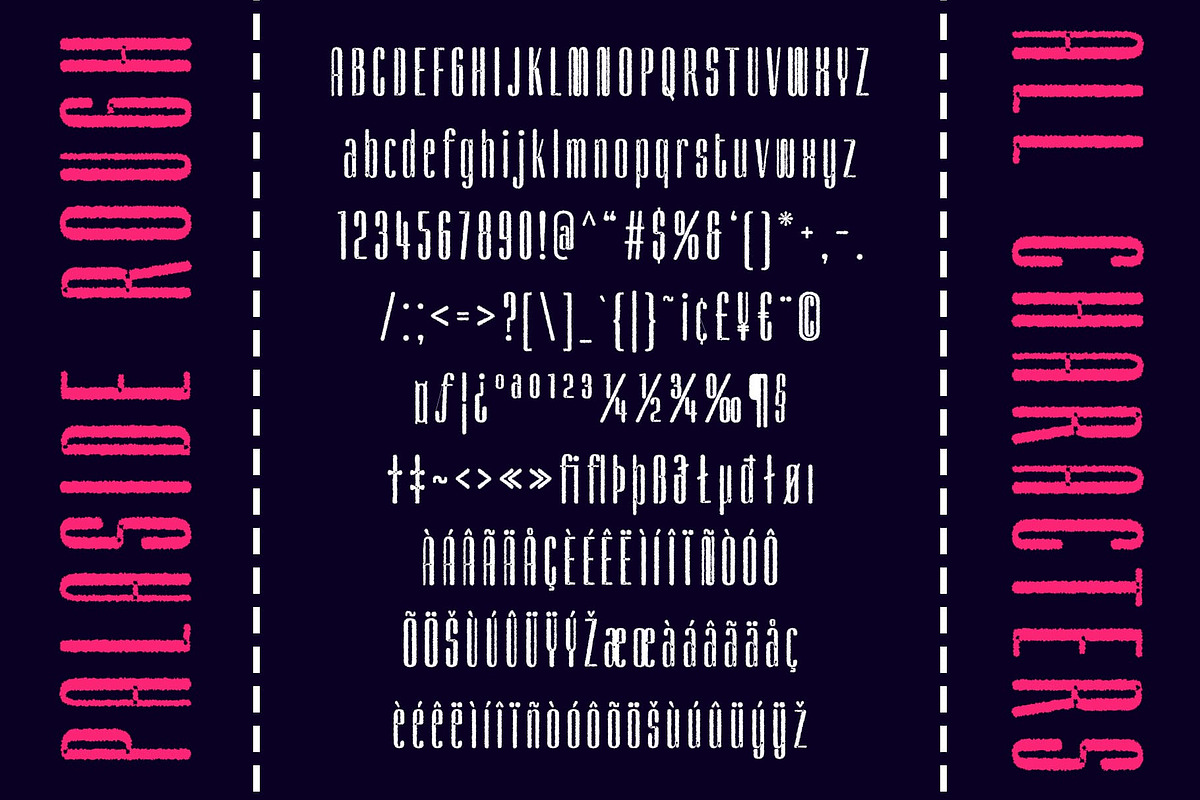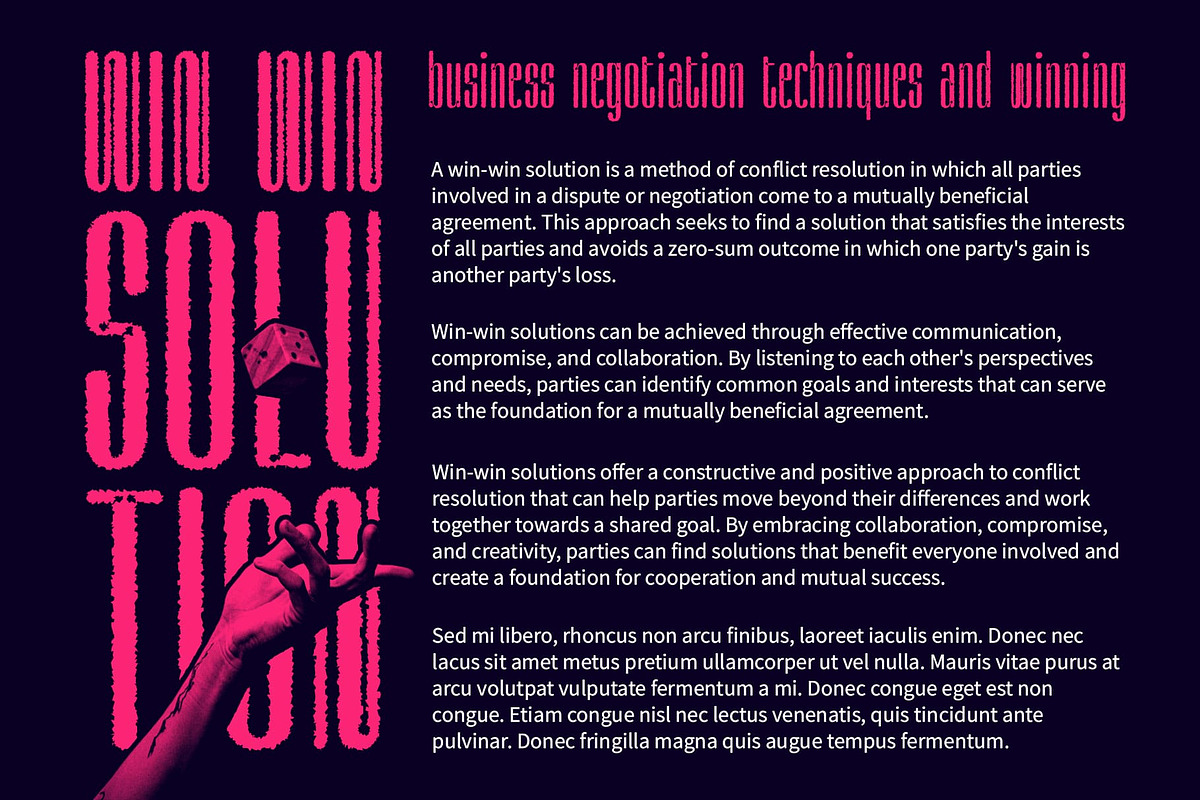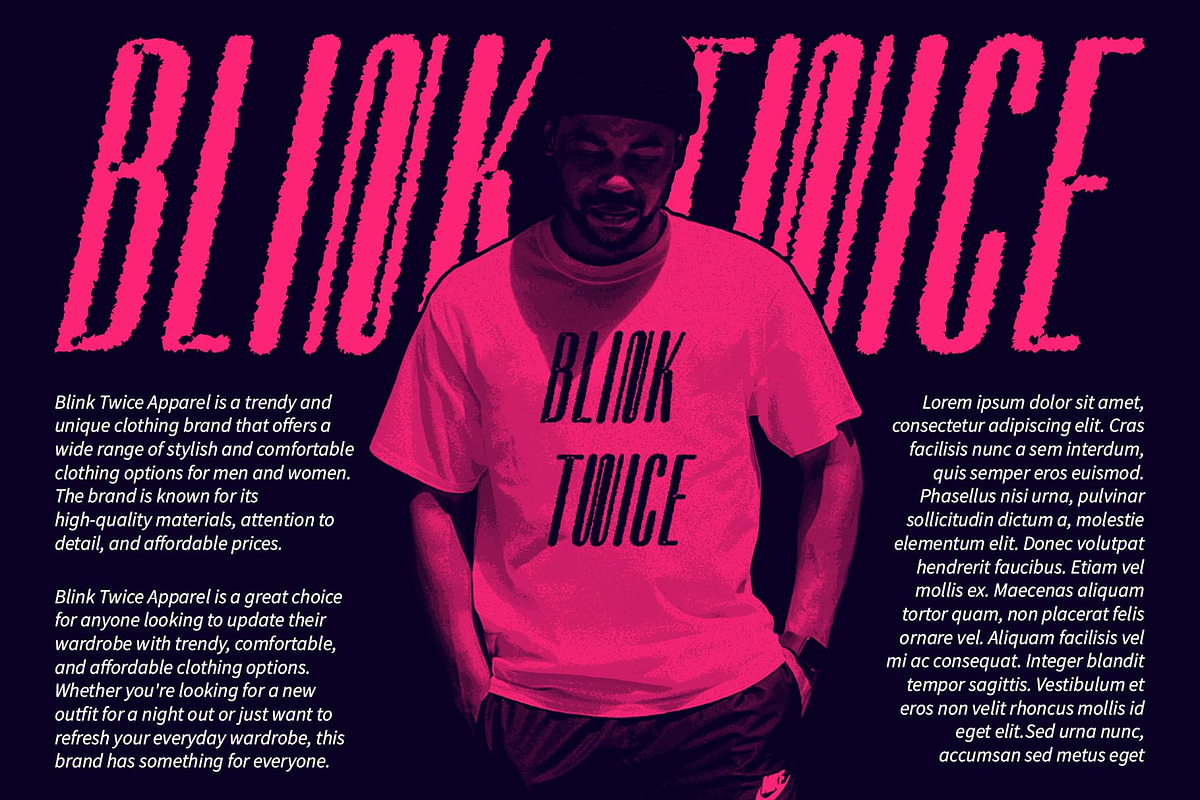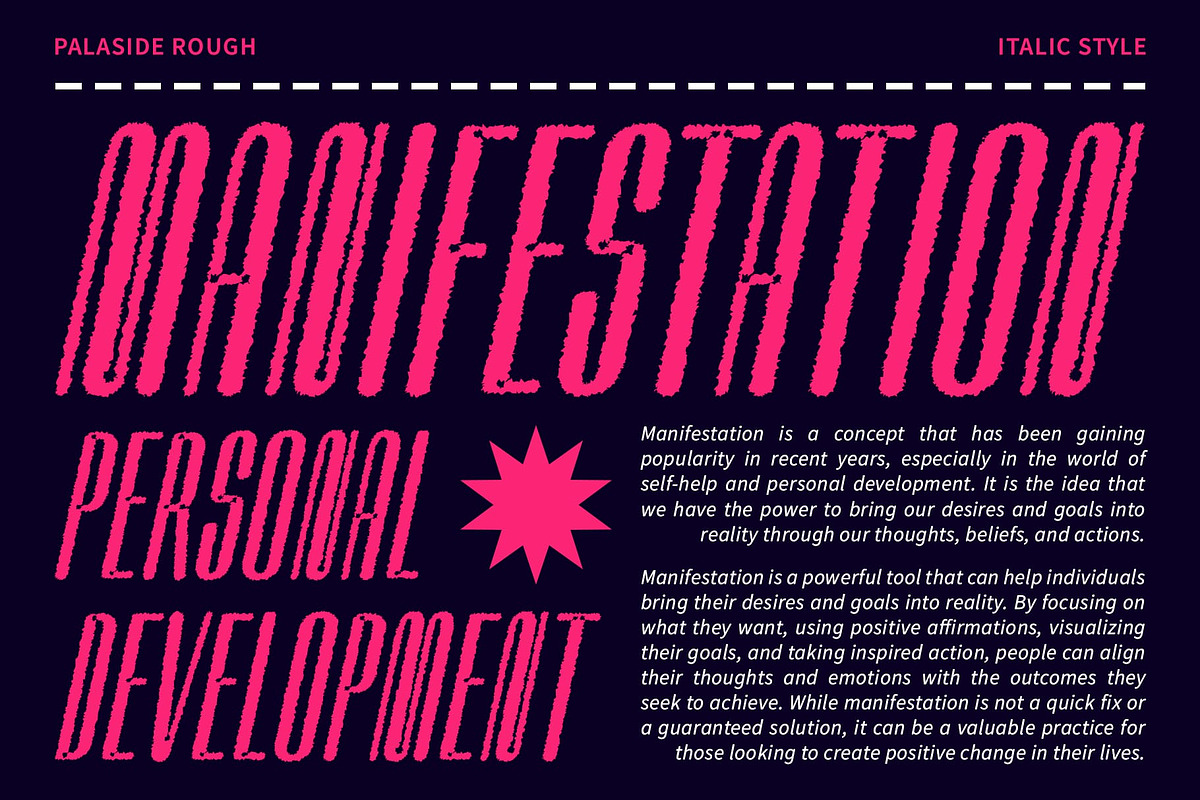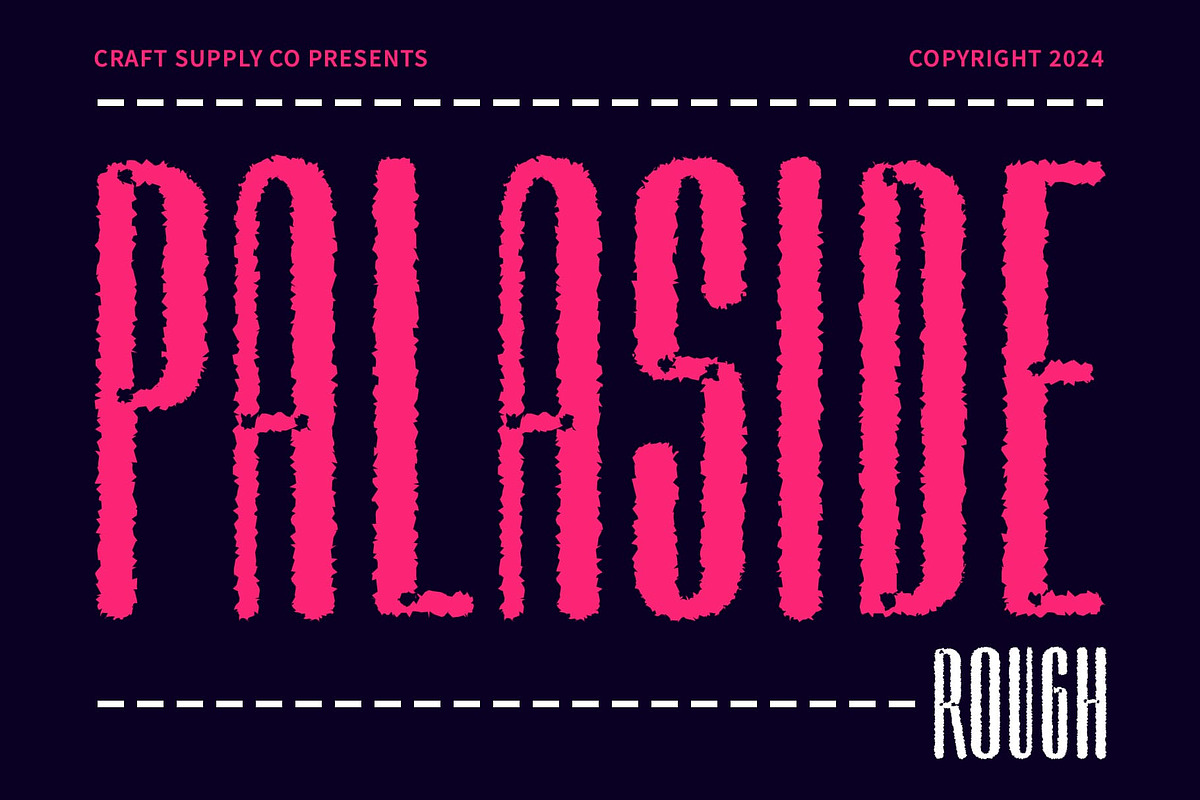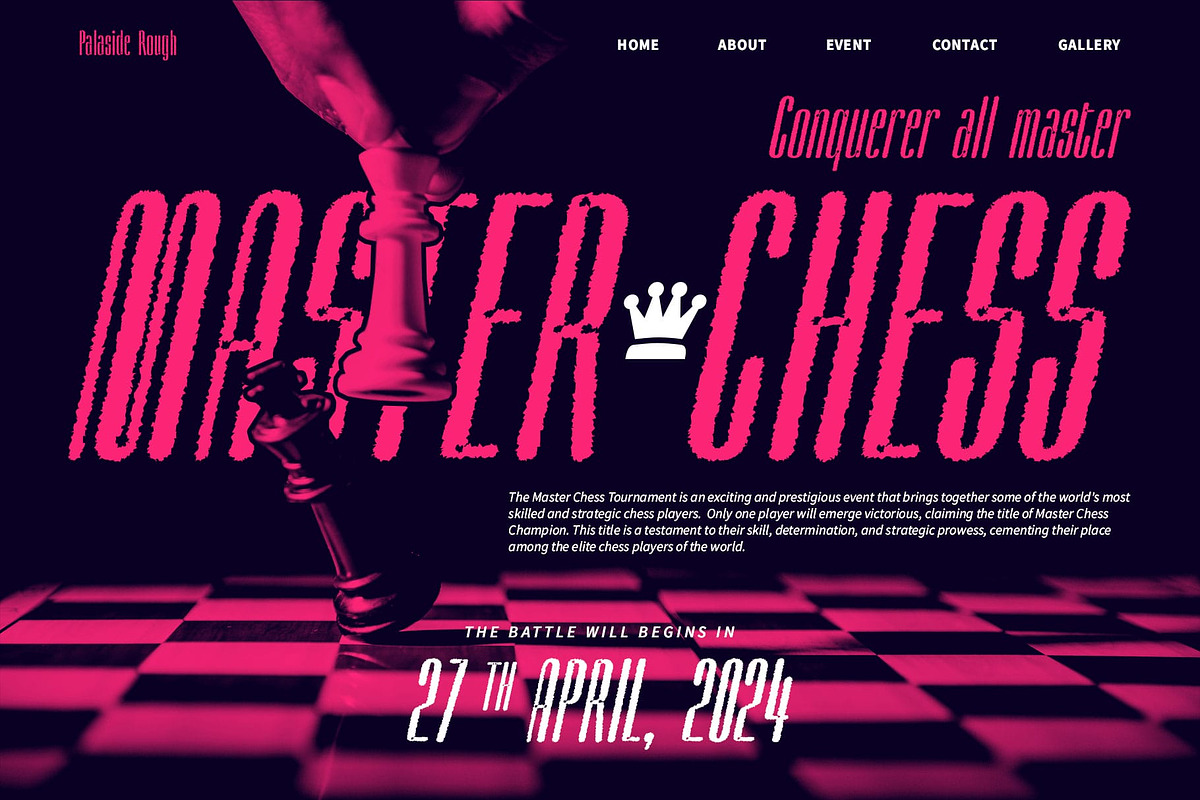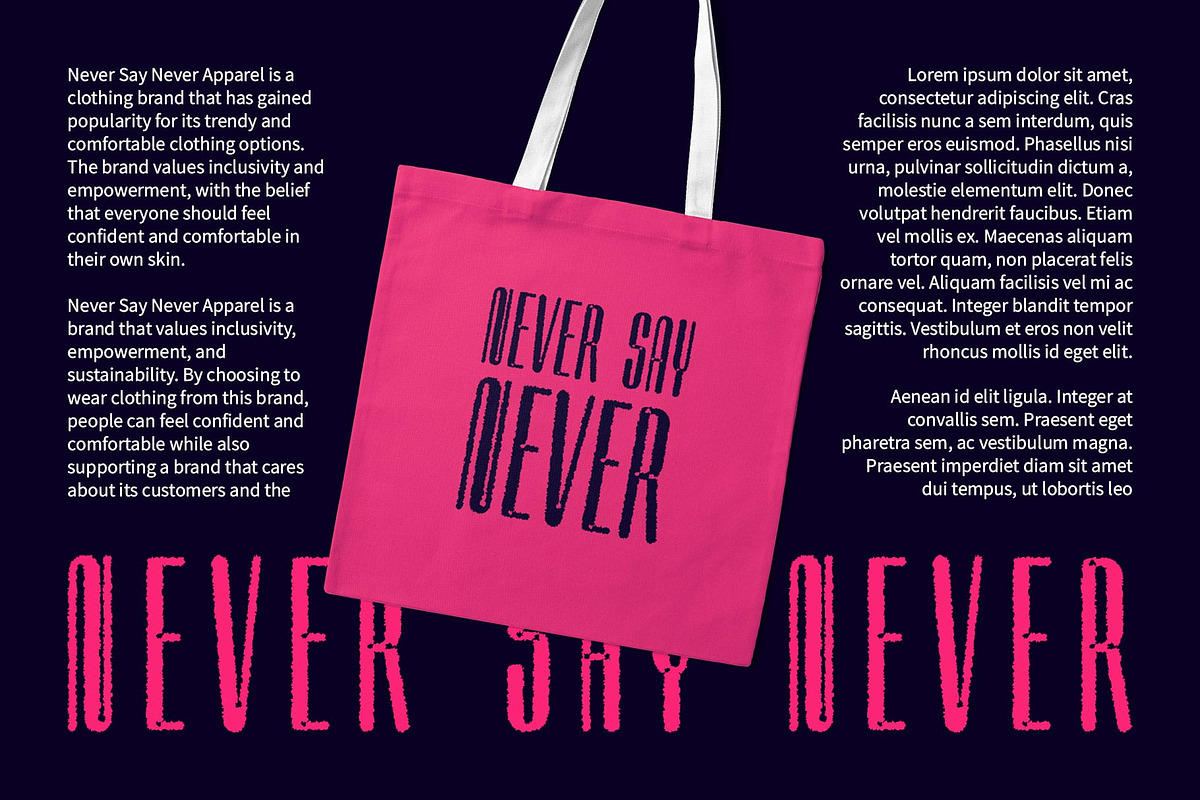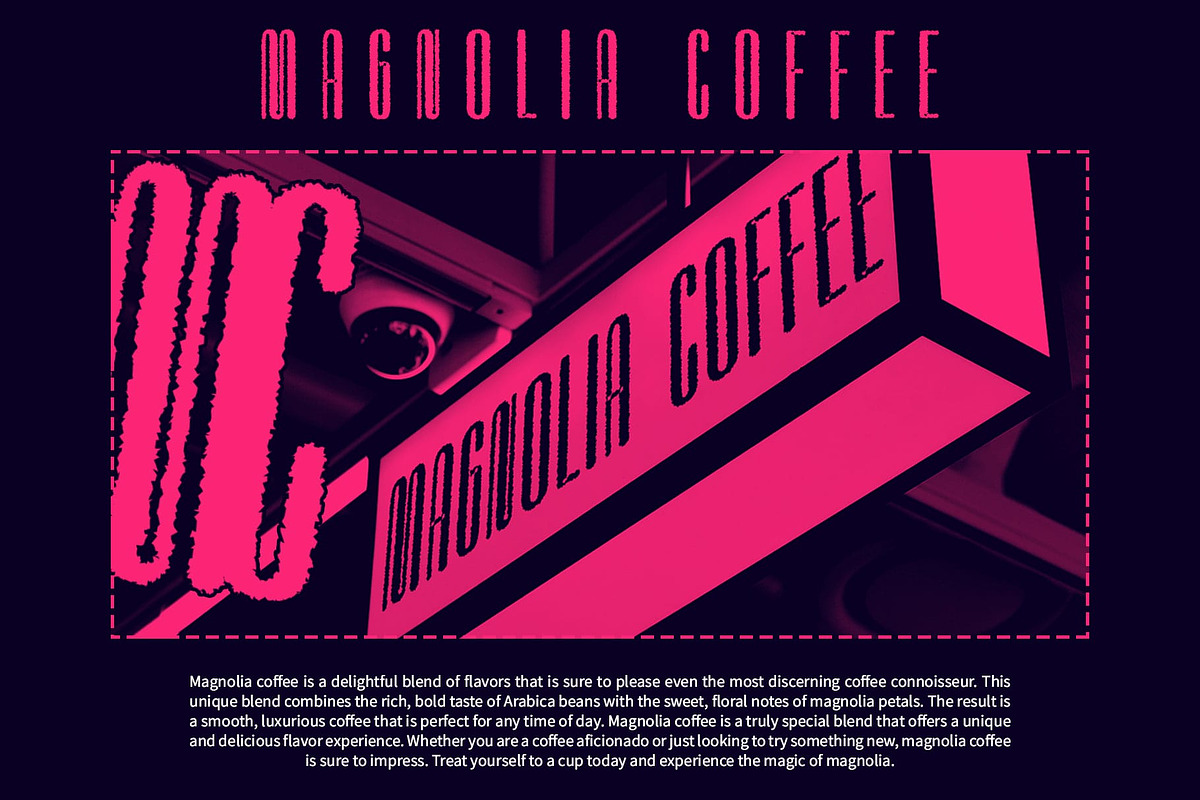
Palaside Rough
Palaside Rough: Embracing Vintage Vibes
Condensed Sans Serif Charm Palaside Rough captivates with its condensed sans serif design, exuding a sleek and modern aesthetic. Its compressed form adds a sense of urgency and dynamism to any display project.
Retro-Inspired Roughness Embrace the vintage allure of This font with its rough texture effect. This unique feature adds a nostalgic touch, evoking the charm of retro design styles from bygone eras.
Versatile Vintage Appeal This font is perfectly suited for vintage and retro-themed projects, offering versatility in its application. Whether used for posters, signage, or branding materials, its compressed form and rough texture lend authenticity to any design.
Channeling Nostalgic Energy Infuse your designs with nostalgic energy using This font. Its condensed silhouette and rough texture effortlessly evoke a bygone era, adding character and personality to your creative endeavors.
Vintage Vibes, Modern Appeal This font combines the charm of vintage design with a modern twist. Its condensed sans serif form and rough texture effect offer versatility and nostalgia, making it an ideal choice for a wide range of retro-inspired projects.